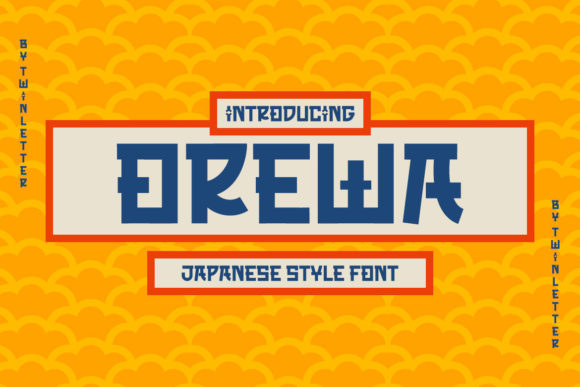
Unleash your design prowess with Orewa Font, the extraordinary display font meticulously crafted by twinletter, designed to catapult your creative projects to new heights. Let your imagination run wild as you embrace the unique charm and captivating aura that Orewa Font exudes.
Orewa Font is not just a mere font; it's an artistic expression that ignites your creative spirit. Its intricate details and captivating curves will leave an unforgettable impression on your audience, leaving them spellbound by the sheer brilliance of your design.
Imagine the allure of your social media posts, the impact of your marketing materials, and the sheer elegance of your website designs when adorned with Orewa Font. Its captivating presence will draw eyes and captivate hearts, leaving an indelible mark on anyone who encounters it.
With Orewa Font, you possess the power to transform ordinary designs into extraordinary masterpieces. Its versatility allows you to effortlessly adapt it to any project, from whimsical invitations to sophisticated logos. Let your creativity flourish as you explore the limitless possibilities that Orewa Font offers.
Stand out from the mundane and embrace the remarkable. Allow Orewa Font to elevate your designs to dizzying heights, leaving your audience in awe of your artistic prowess. Invest in Orewa Font today and unlock a world of design possibilities that will leave you breathless.